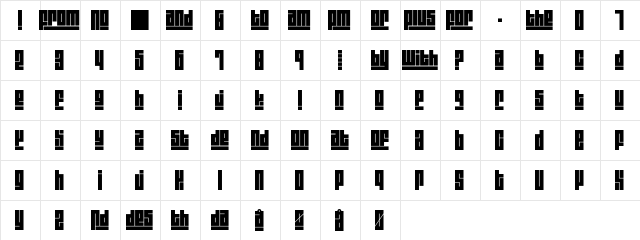
Blackout3 Regular
| Foundry | Ryoichi Tsunekawa |
| Designer | Ryoichi Tsunekawa |
Design Context for Blackout3 Typeface
Blackout3 is a composed and adaptable typeface that performs quietly and consistently across a wide range of design contexts.